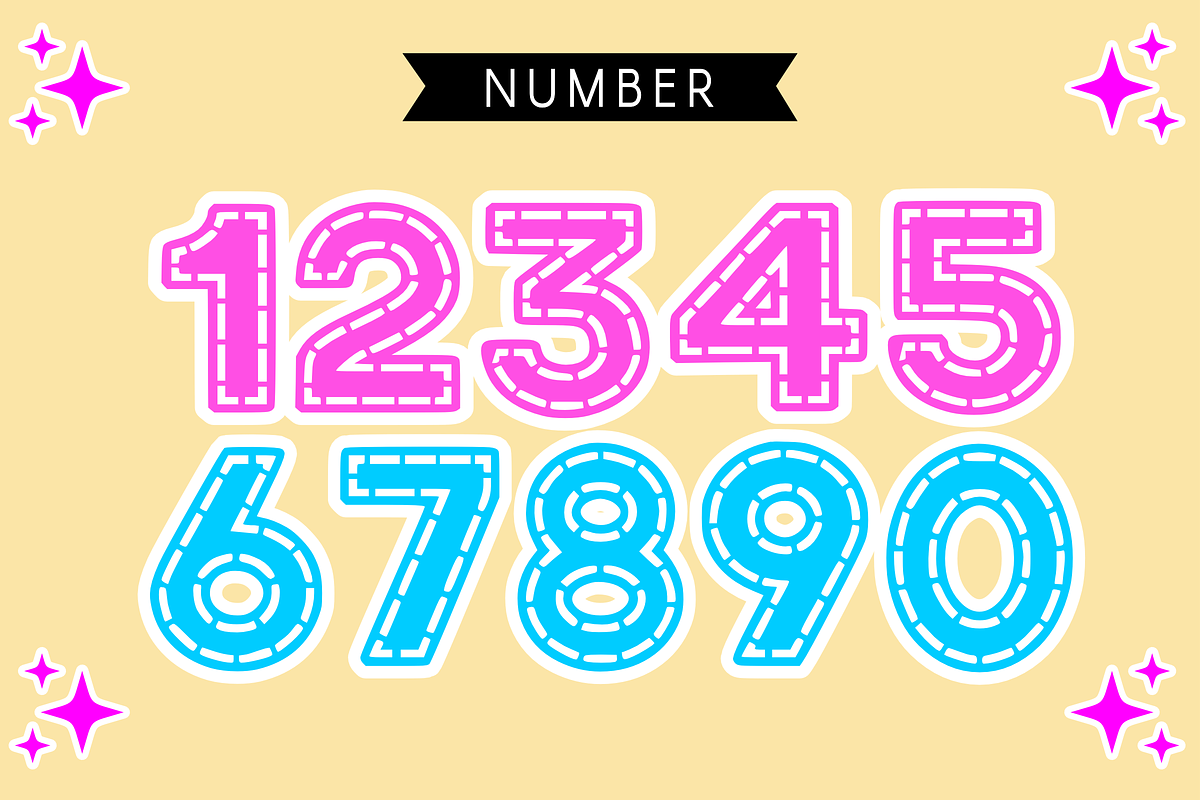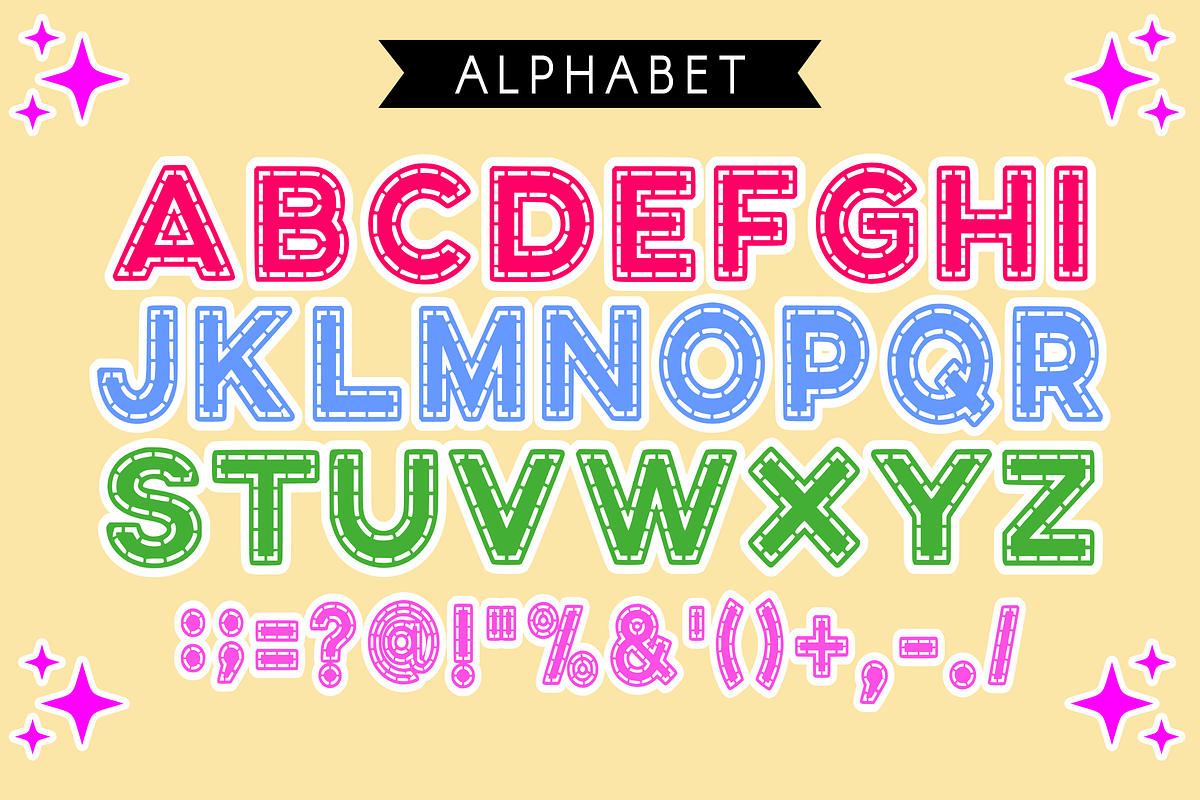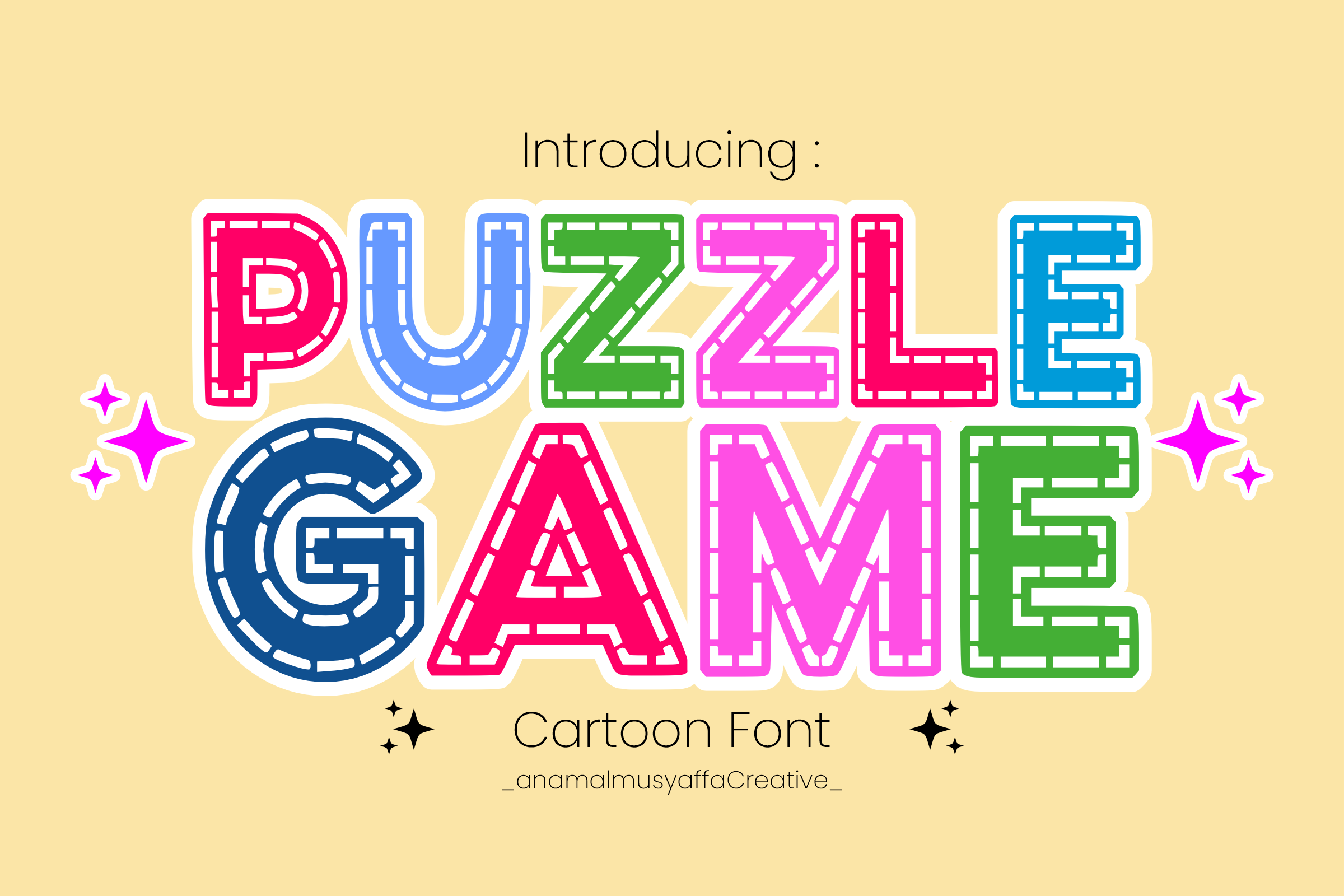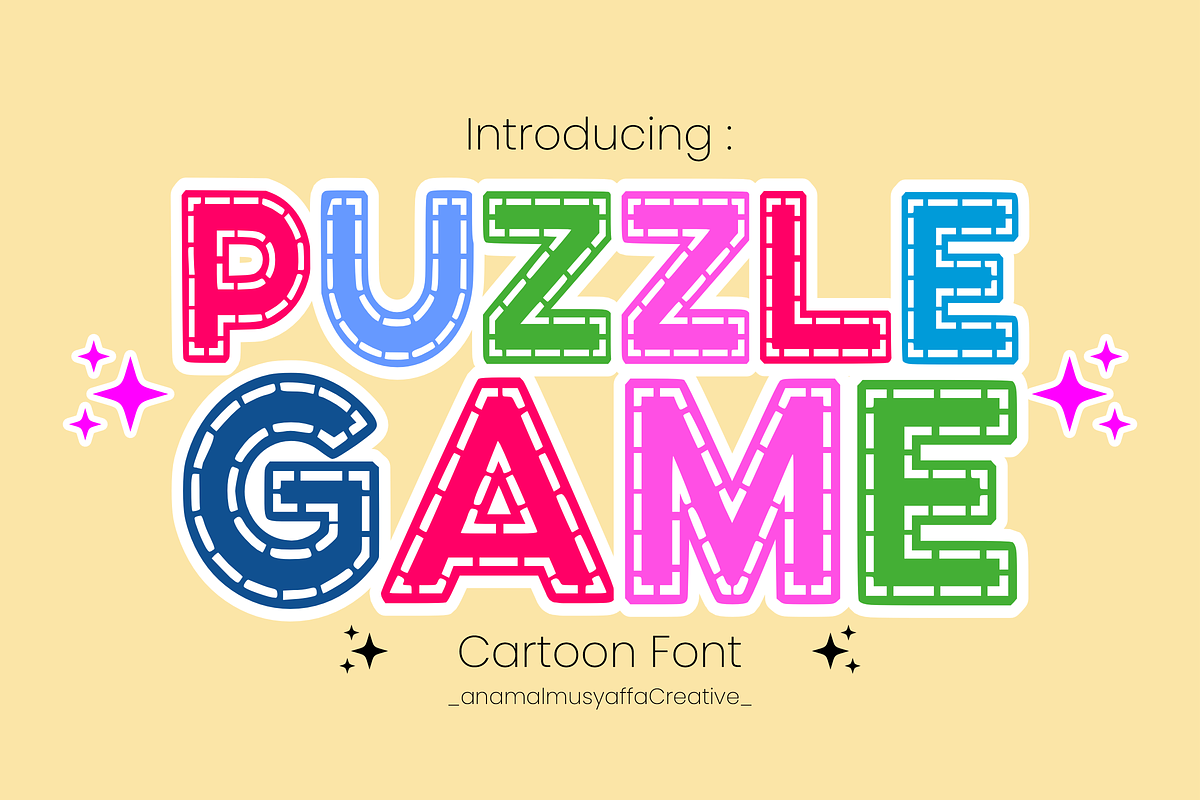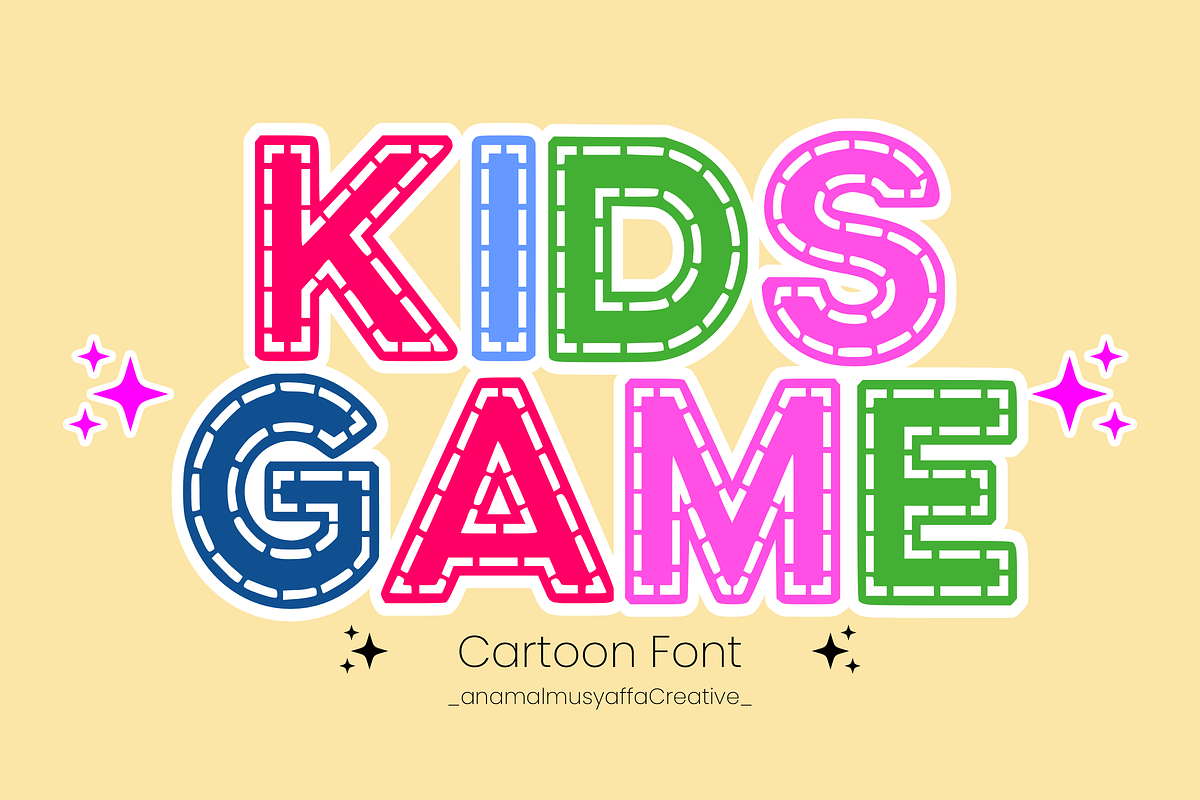
Puzzle Game - Game Font Types
Unveiling “Puzzle Game,” a font crafted exclusively with a young spirit in mind! Bursting with vibrancy and color, every character is transformed into playful lines, perfect for summoning cheer and creativity. Whether it’s jazzing up the typography in gaming, breath-taking sublimation printing, adding fun to your morning mugs, or delivering an element of whimsy to comics, “Puzzle Game” wears many hats. The versatility doesn’t stop there; it can also seamlessly integrate into the corporate world as enchanting icons that stand out in a sea of uniformity. “Puzzle Game” is here to redefine fun in the realm of fonts!